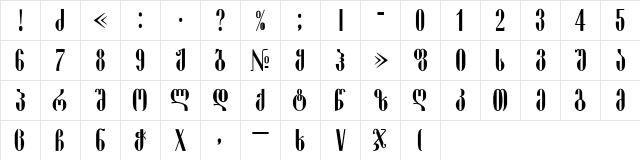
Pakizi Regular
Design Context for Pakizi Typeface
Pakizi is a composed and adaptable typeface that performs quietly and consistently across a wide range of design contexts.